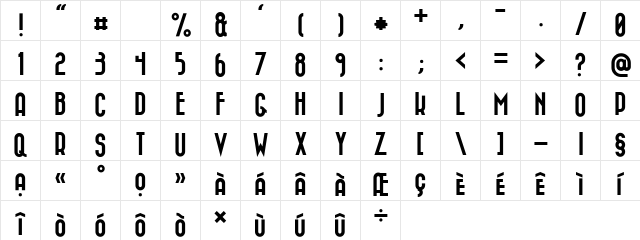
Bazar Medium Font Preview
Bazar Medium
Design Context for Bazar Typeface
Bazar takes a measured approach to typography — its balanced proportions and neutral character make it a reliable workhorse for both digital and print work.